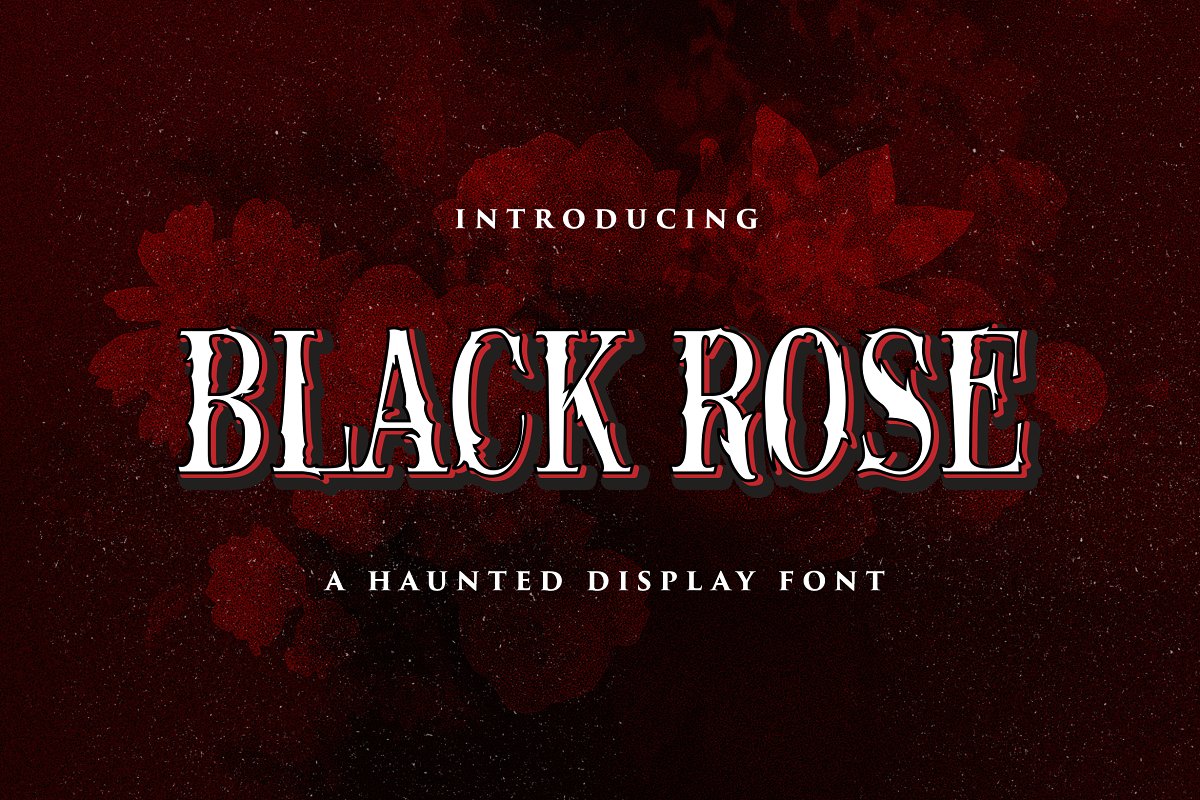
About the Black Rose Haunted Display Font
Introducing Black Rose – Haunted Display FontBlack Rose is a unique display font, It features a spooky feel that makes it perfect for any project that requires a horror-themed, Use it for movies, flyers, posters, Halloween’s craftings and much more!FEATURESTTF/OTF/WOFFStylistic AlternatesLigaturesUppercase and Lowercase lettersNumbering and PunctuationsMultilingual SupportWorks on PC or MacSimple InstallationSupport Adobe Illustrator, Adobe Photoshop, Adobe InDesign, also works on Microsoft WordHope you Like it